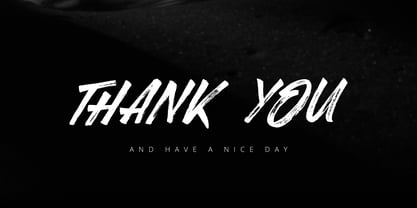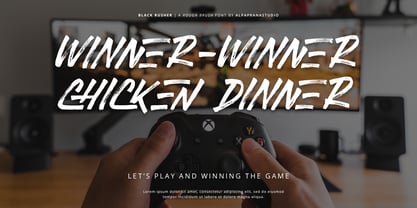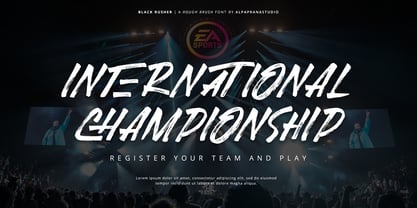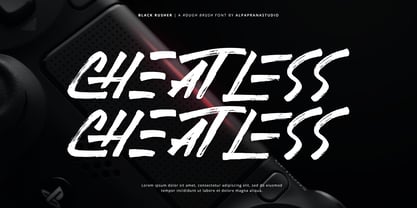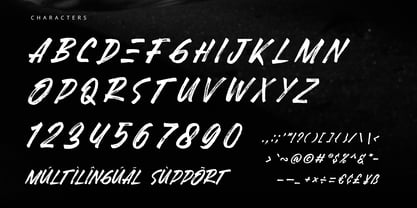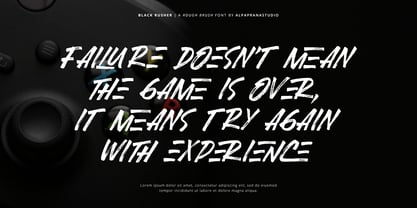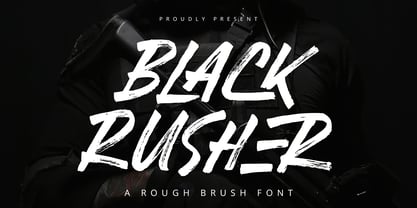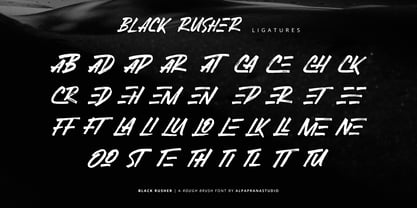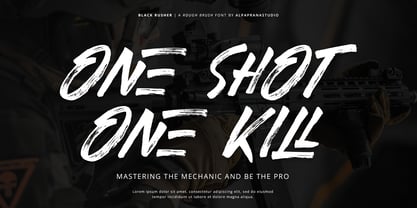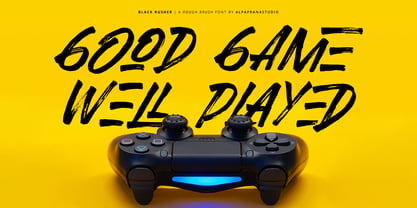
Black Rusher
by Alpaprana
The Black Rusher Font Family was designed by Nadia Salsabila and published by Alpaprana. Black Rusher contains 1 styles. More about this family
Black Rusher is a brush font with natural and modern feels. It will be perfectly used for Branding, Logo Design, Lettering, Logotype, Clothing, Poster, magazine, packaging, posters, shopping bags, t-shirts, book covers, photography, special events and other design project.
Designers: Nadia Salsabila
Foundry: Alpaprana